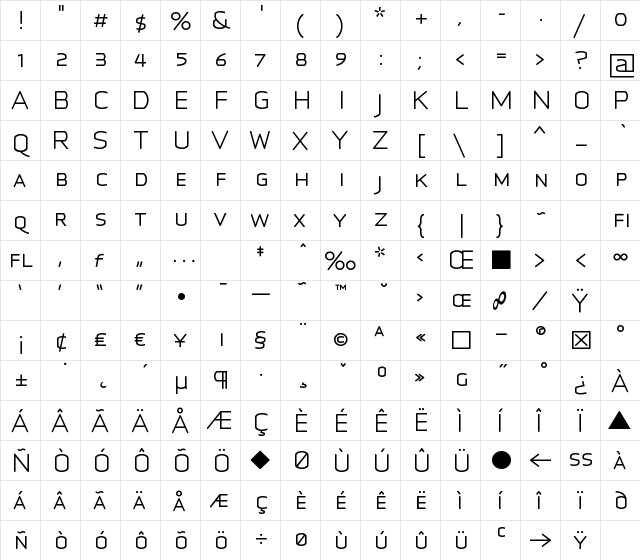
Infinity-C-M Regular Font Preview
Infinity-C-M Regular
Infinity-C-M Regular Font Details
Design Context for Infinity-C-M Typeface
Infinity-C-M is a composed and adaptable typeface that performs quietly and consistently across a wide range of design contexts.